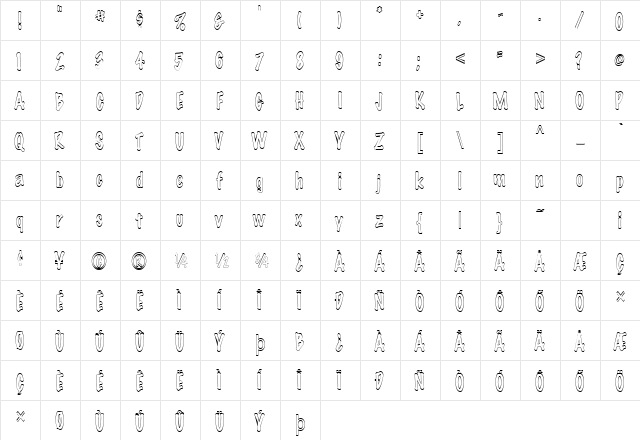
MarkerHollowCondensed Normal
Design Context for MarkerHollowCondensed Typeface
MarkerHollowCondensed is a composed and adaptable typeface that performs quietly and consistently across a wide range of design contexts. The condensed width makes it efficient for tight spaces without sacrificing legibility.